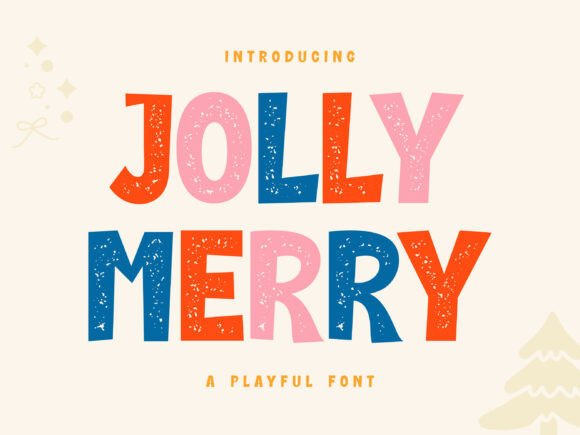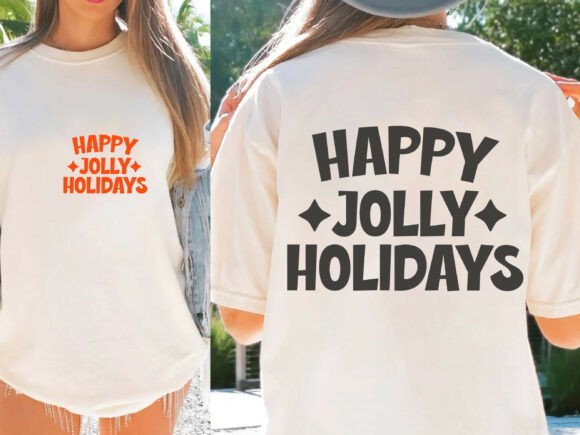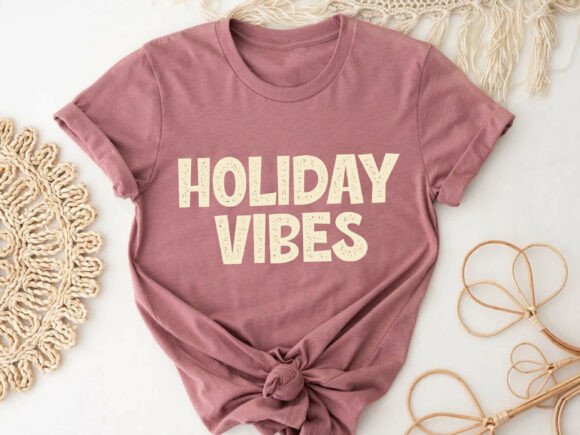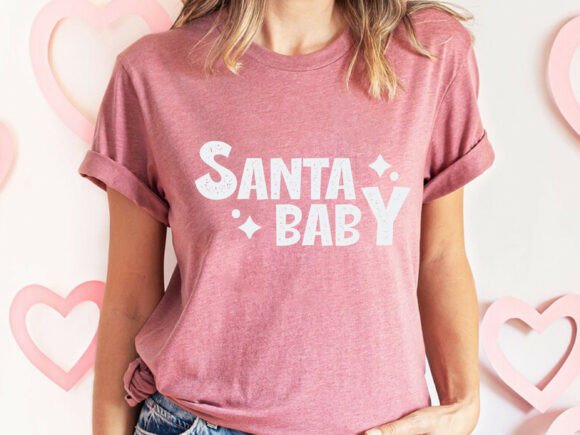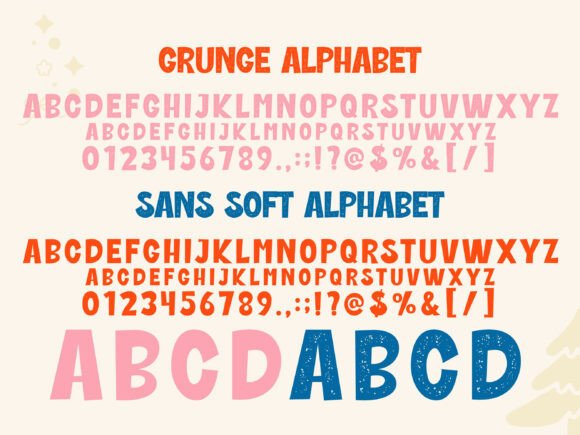
Jolly Merry Font
Jolly Merry is a bold and cheerful display font that captures the magic and fun of the festive season. With chunky letterforms, playful irregularities, and a speckled texture, this font brings a joyful and handcrafted feel to any design. Each character radiates warmth and excitement, making it a perfect fit for holiday-themed projects, kids’ party invitations, toy packaging, greeting cards, or playful branding.
Its multi-color style works beautifully in both solid and layered color designs, allowing you to create eye-catching compositions effortlessly. Whether you’re designing for Christmas, birthdays, or just want to inject a dose of fun into your layout, Jolly Merry will help your message stand out with personality and charm.